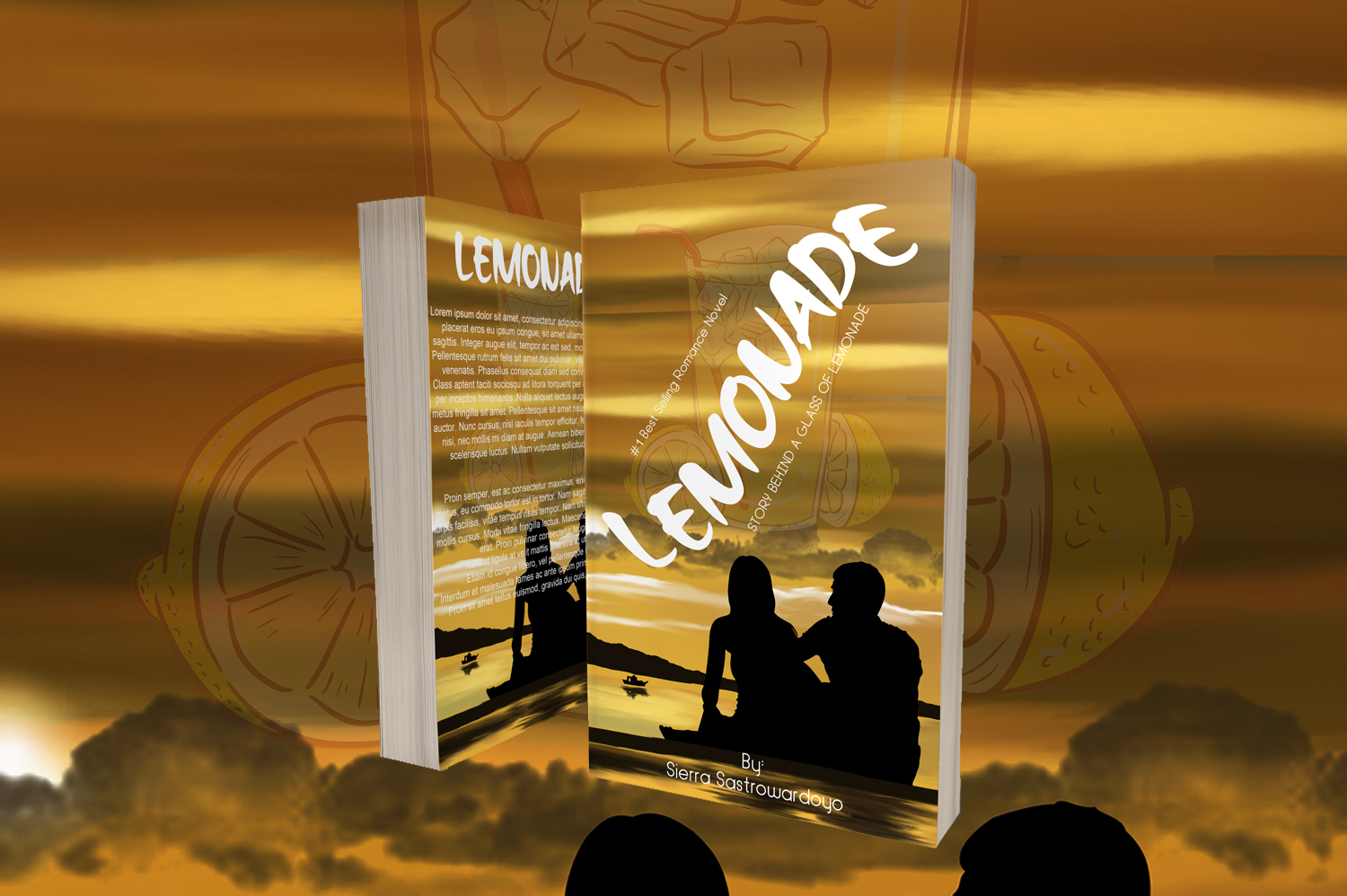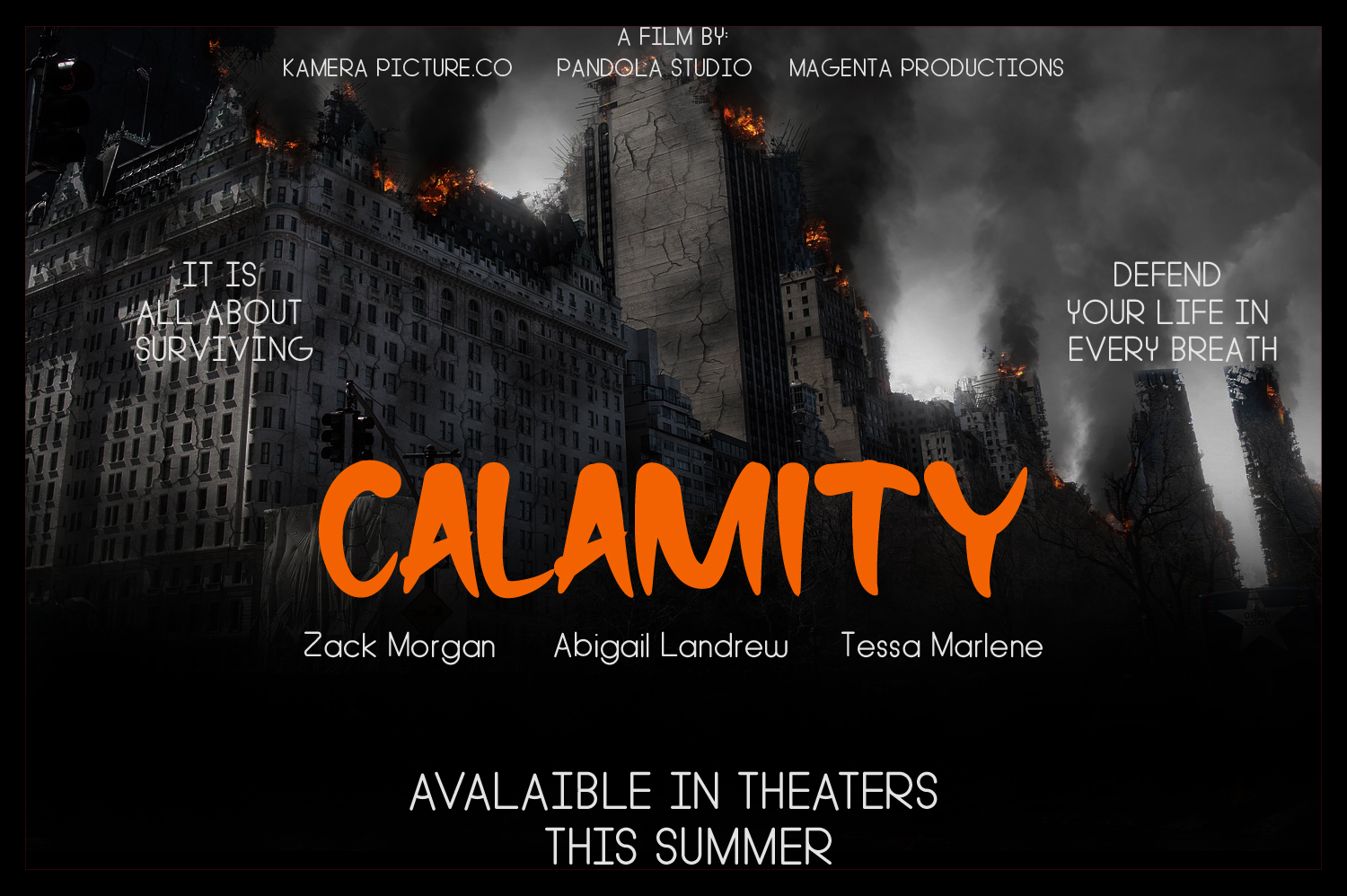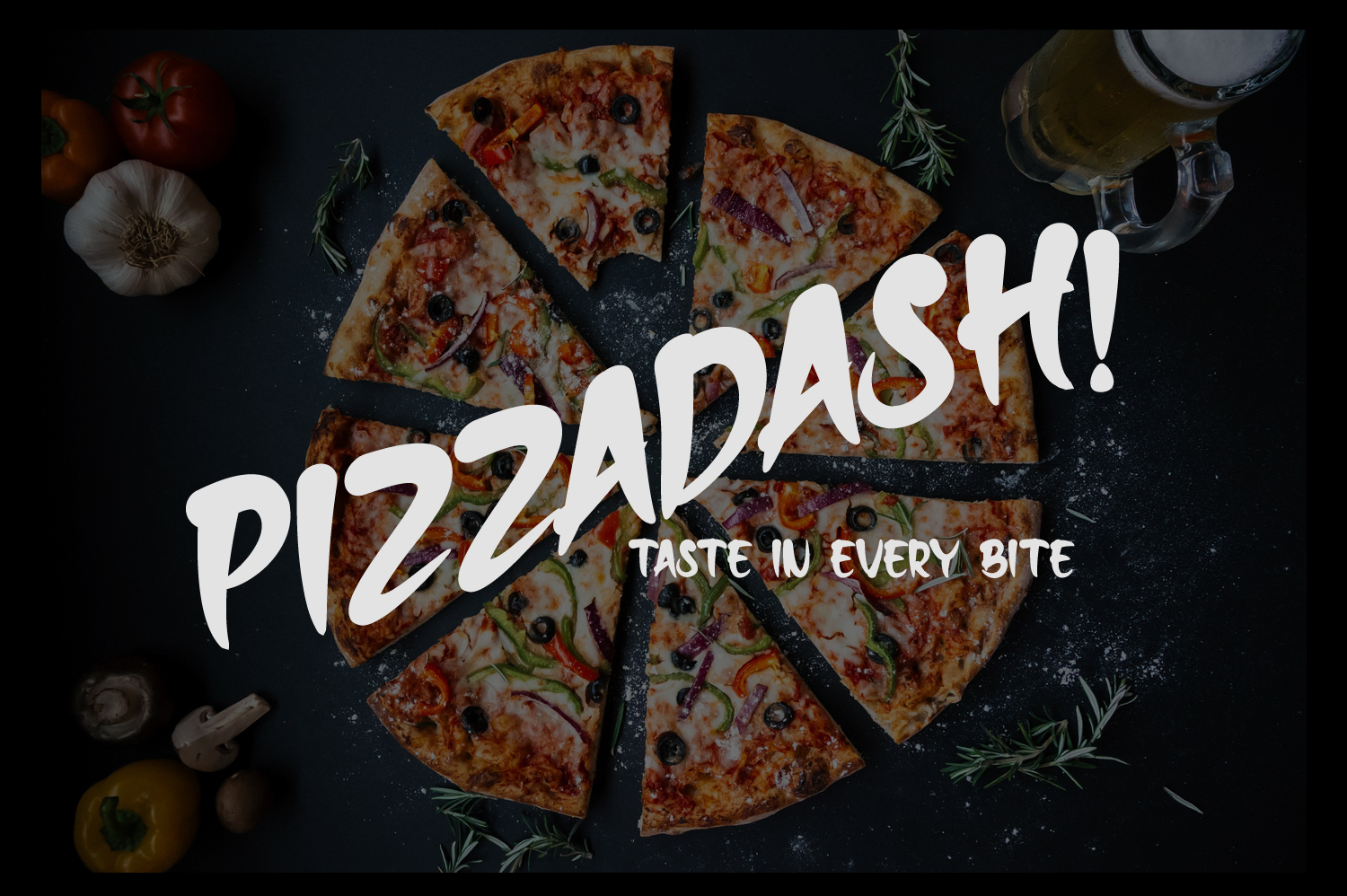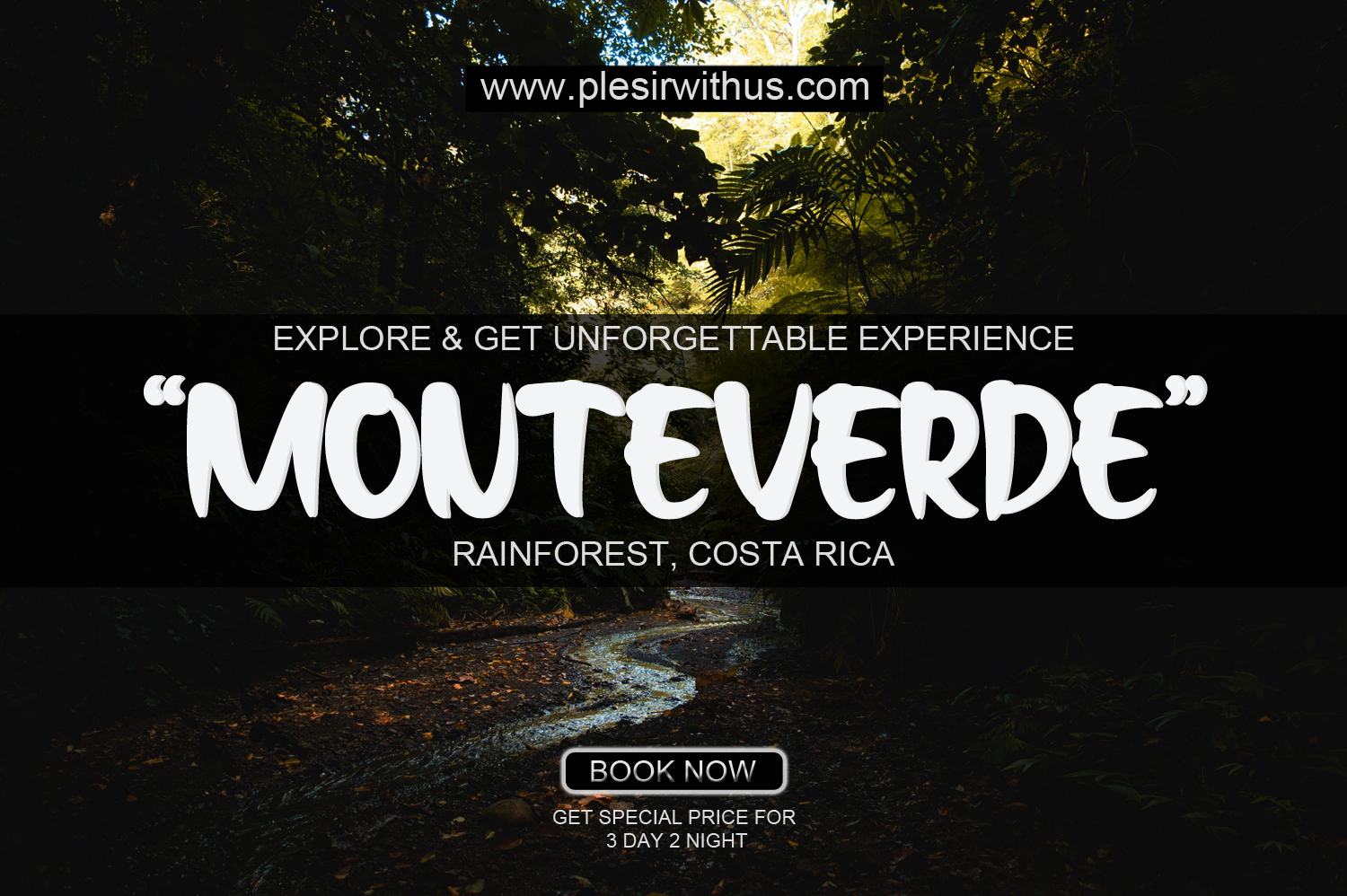
Amazle Typeface Free Font
Amazle Typeface Free Font is a bold and unique handwritten display font with a powerful vibe. It will turn any design project into an eye-catcher. Amazle is suitable for many projects such as movie titles, posters, headings, book covers, clothing, labeling, album covers, logos material, and more. This free typeface was designed by the talented Marchtwentype Studio. If you like it don’t forget to check out the full version.